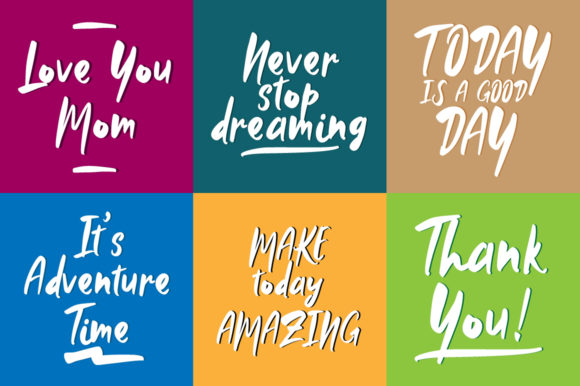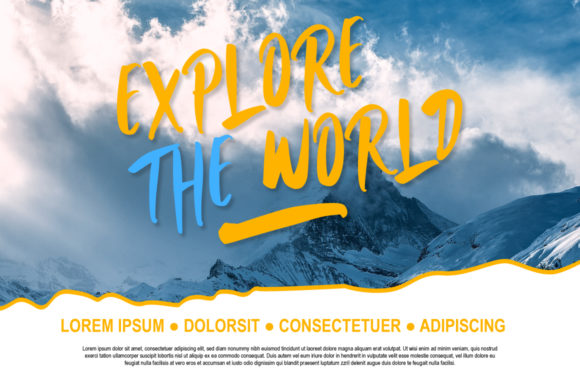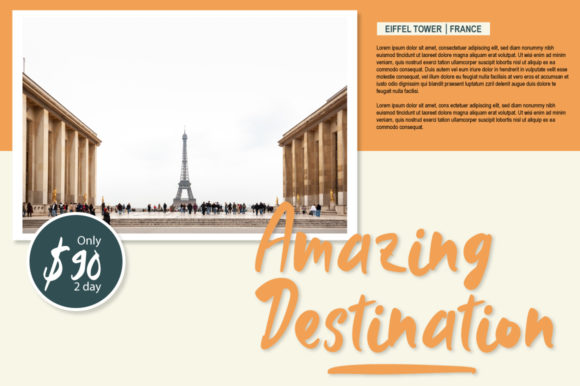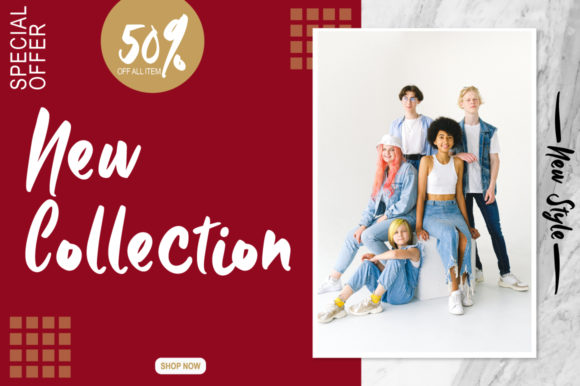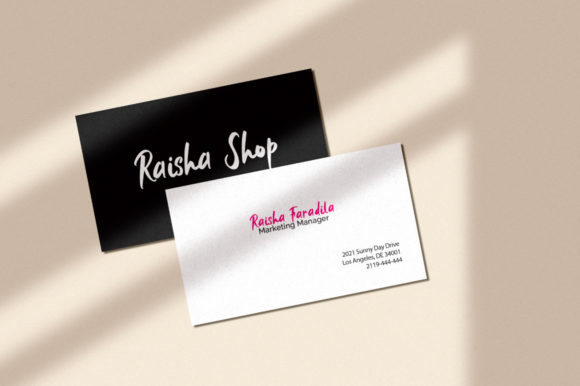
Hello Little Prince Font
About Hello Little Prince Font
Hello Little Prince is a lovely paint brushed handwritten font. It is the best choice for creating eye catching logos, branding and quotes. Every letter has a unique and beautiful touch, which will make your design come alive!